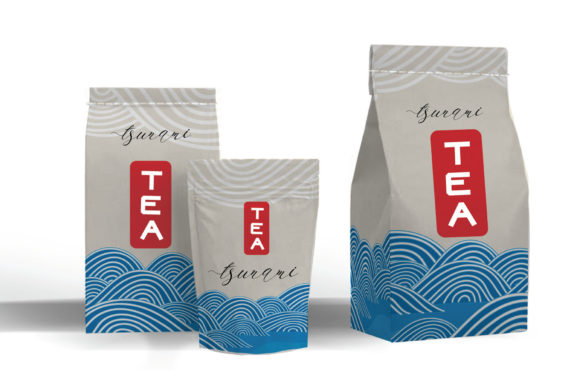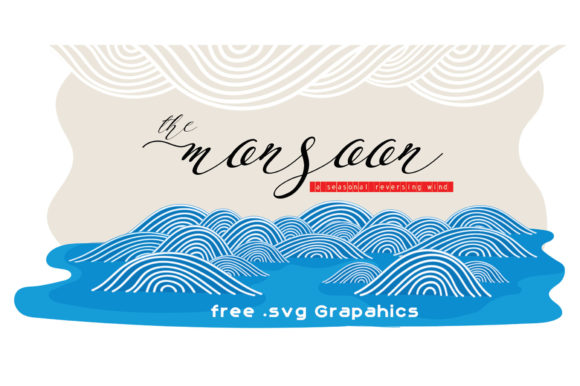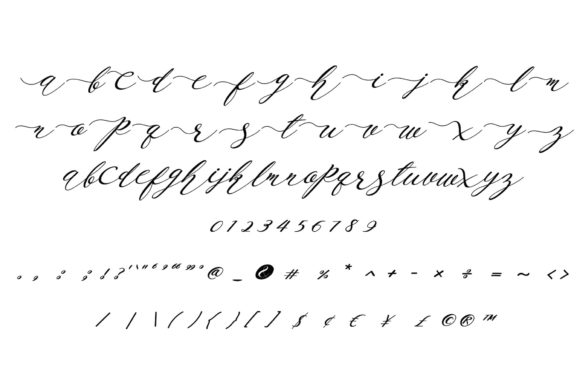
Introduction to Monsoon Font Font
Fonts play a crucial role in design, and the Monsoon Font font is a typeface that brings both character and versatility to any project. Whether you’re working on a branding project, a website, or a print design, the Monsoon Font font offers a unique style that can elevate your work.
Monsoon is a delicate and flowing script font, featuring characters that seem to dance along the baseline.
Add this font to your most creative ideas, and notice how it makes them stand out .
Key Features of Monsoon Font Font
Why Choose Monsoon Font Font?
The Monsoon Font font is more than just a typeface – it’s a design tool that helps you communicate your message with style and clarity. Its unique character set and versatile design make it suitable for a wide range of applications, from elegant invitations to bold headlines.
With its carefully crafted letterforms and balanced proportions, the Monsoon Font font ensures readability and visual appeal across all mediums.
What makes Monsoon Font font special?
The Monsoon Font font stands out with its unique design, exceptional readability, and versatility across various design applications.